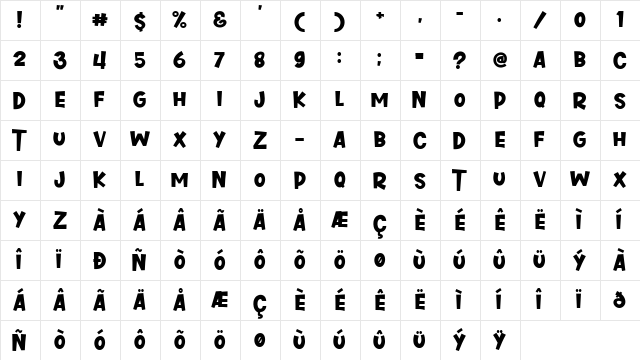
Cupid Deer Regular
| Foundry | Khurasan |
| Designer | Khurasan |
Design Context for Cupid Deer Typeface
Cupid Deer is a composed and adaptable typeface that performs quietly and consistently across a wide range of design contexts.